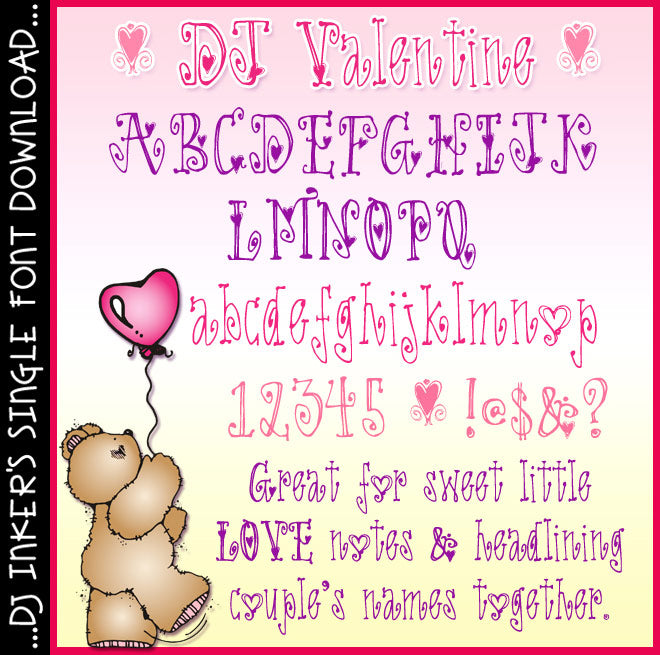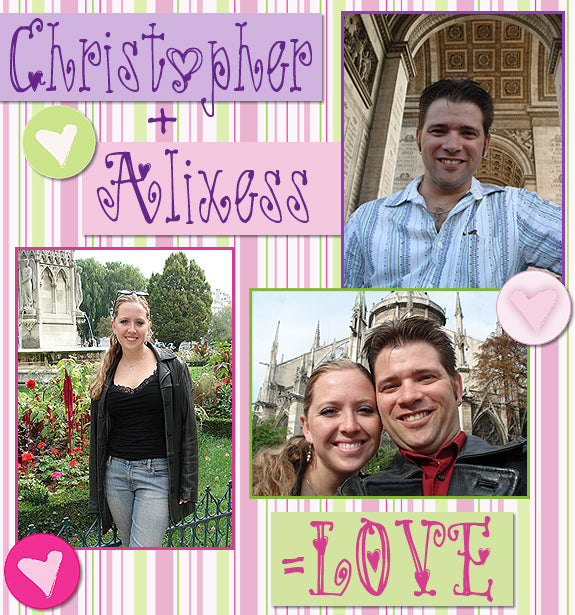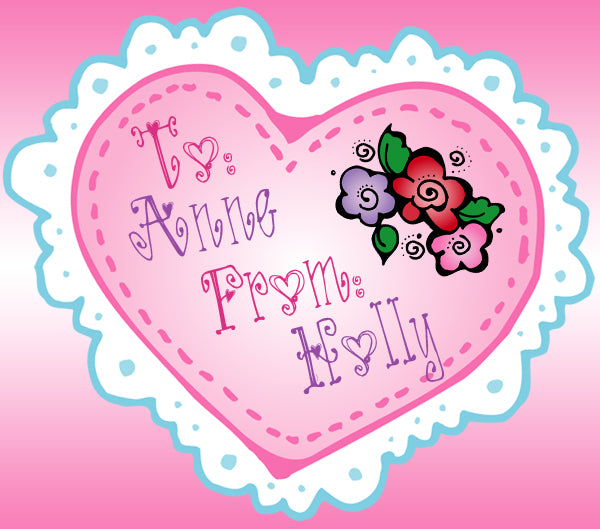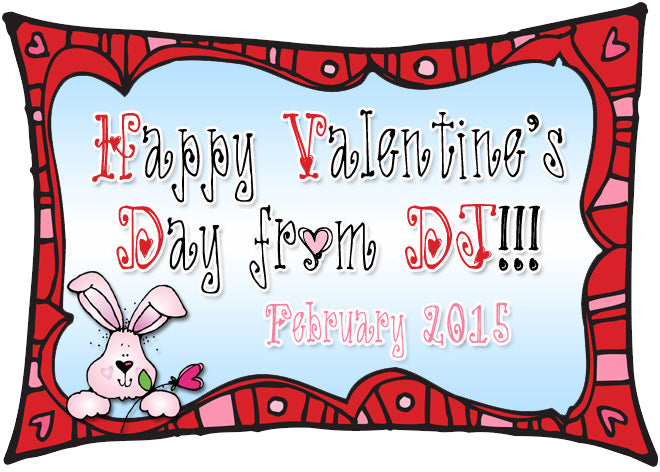
DJ Valentine Font Download
DJ Valentine is a sweet little heart font that's perfect for
love notes, valentines, weddings, anniversaries and all kinds of sweetheart
smiles. This headline font looks best in larger sizes, but great in any
color... especially red, pink & purple.